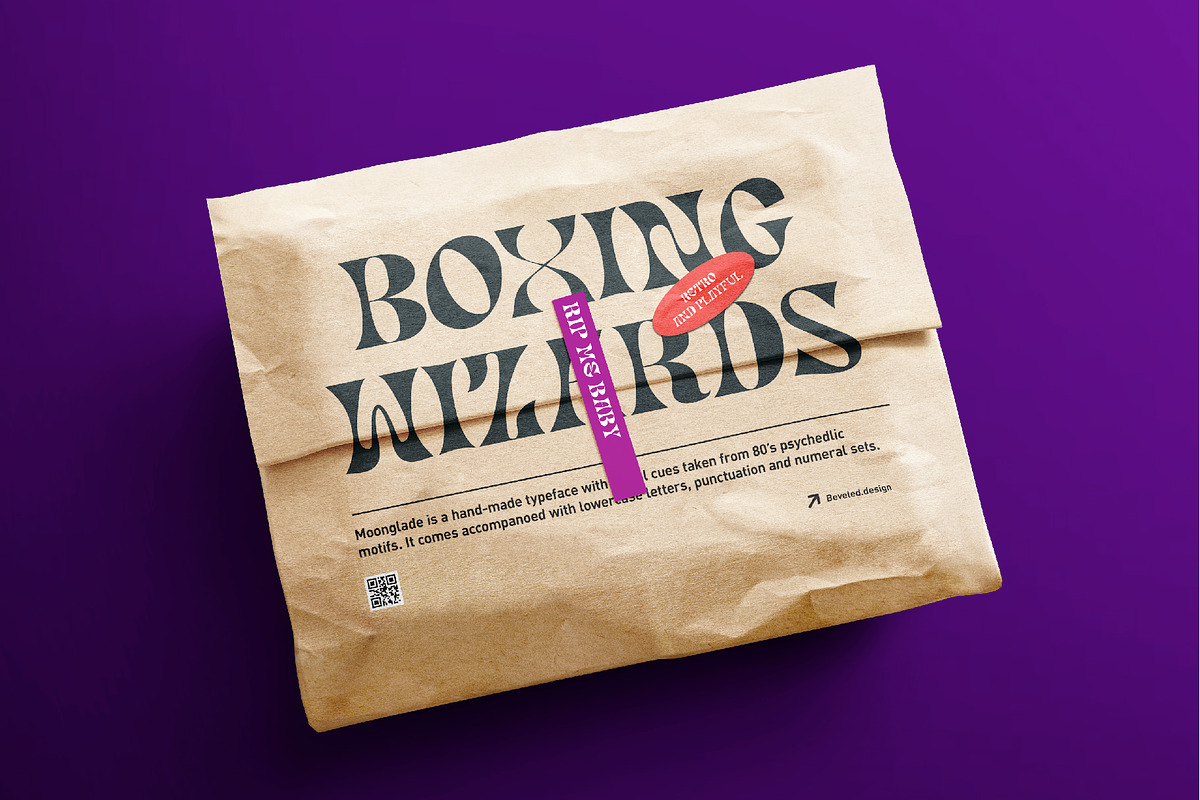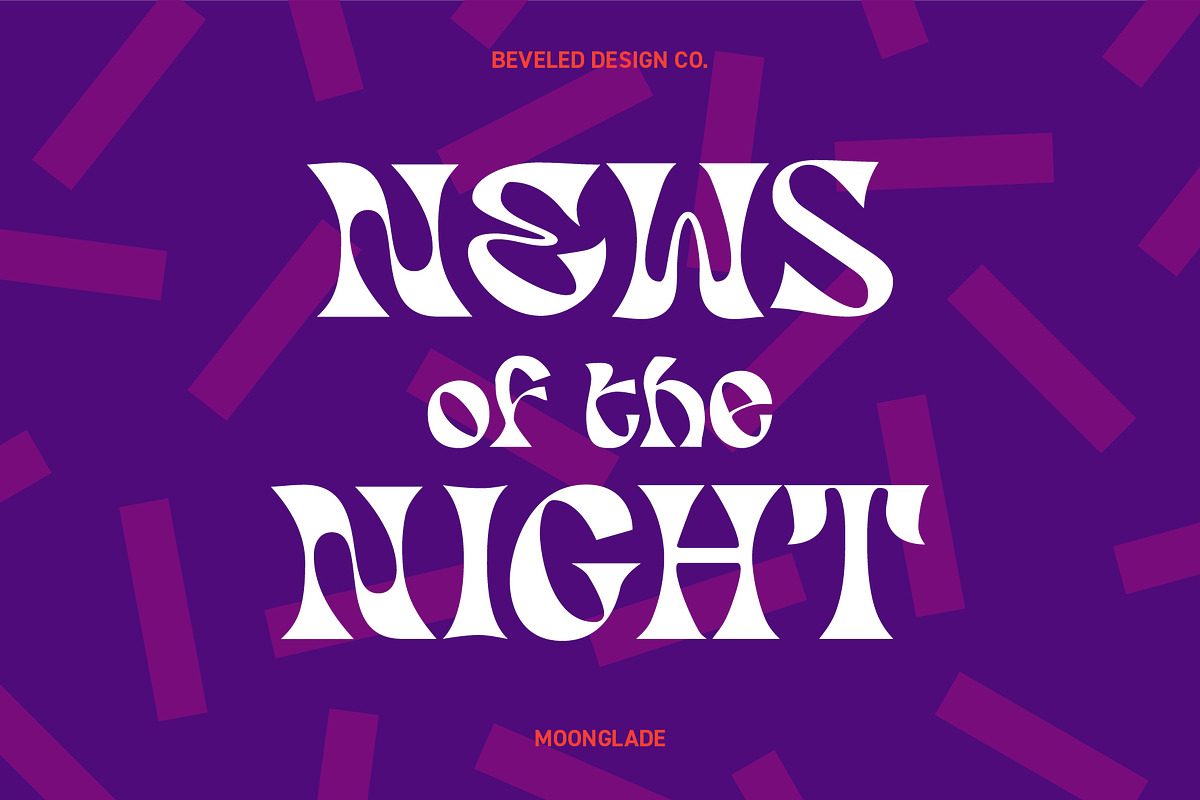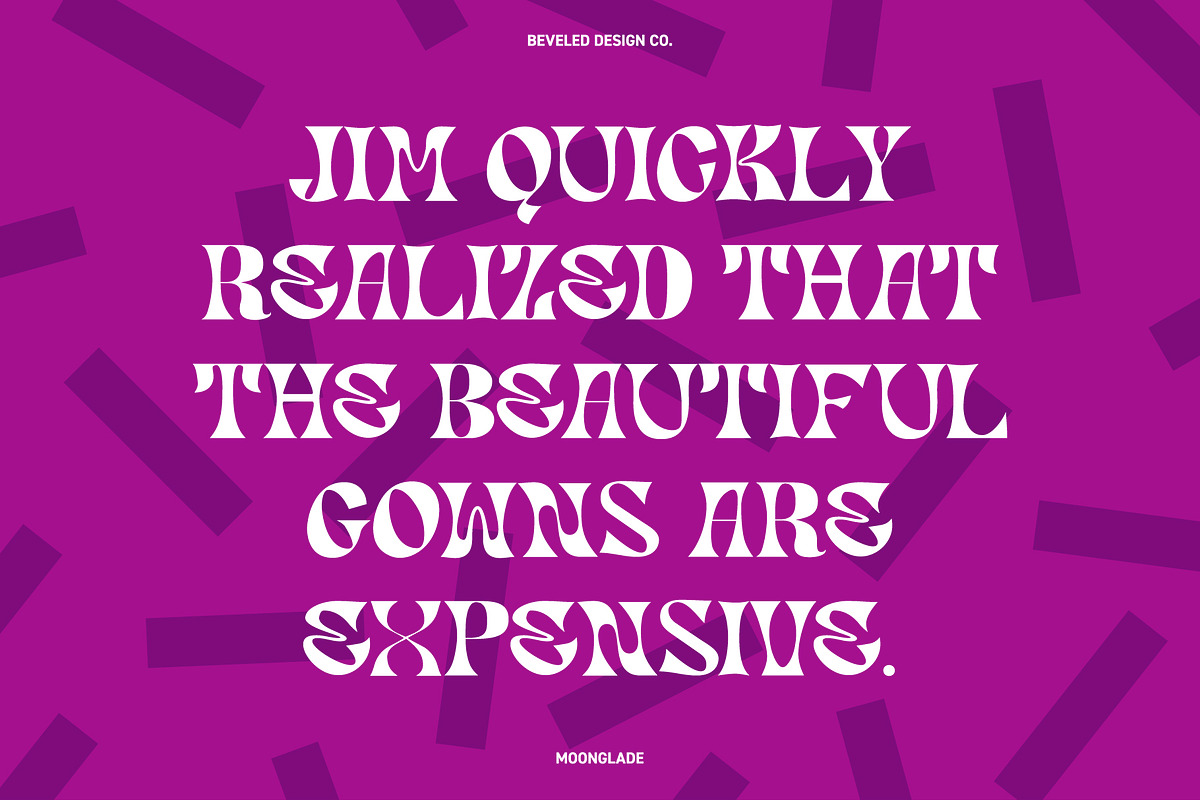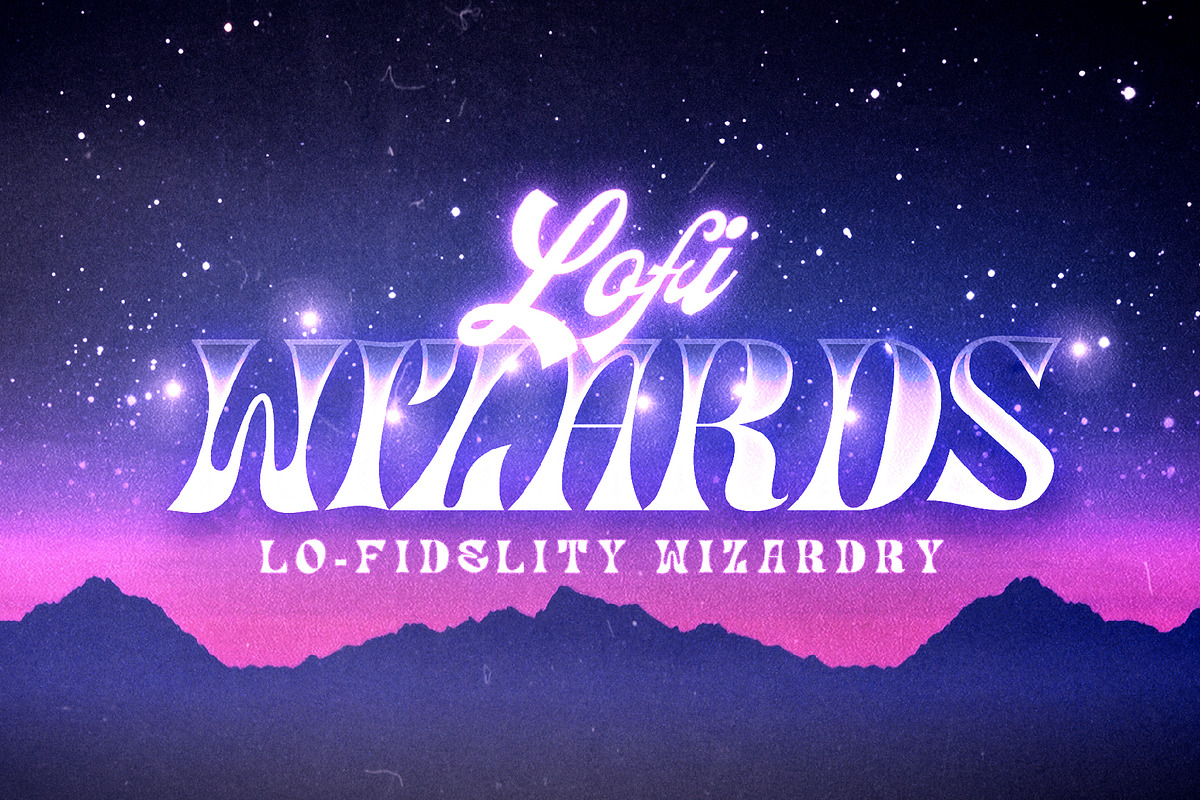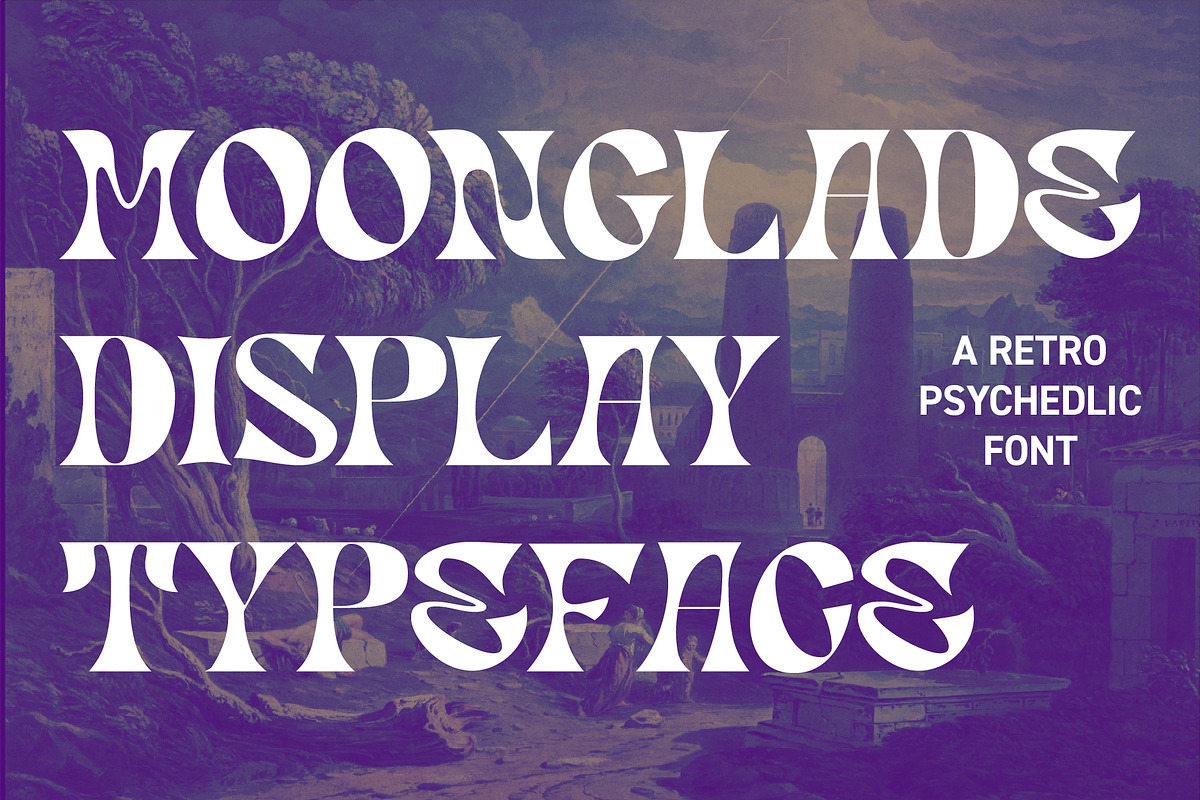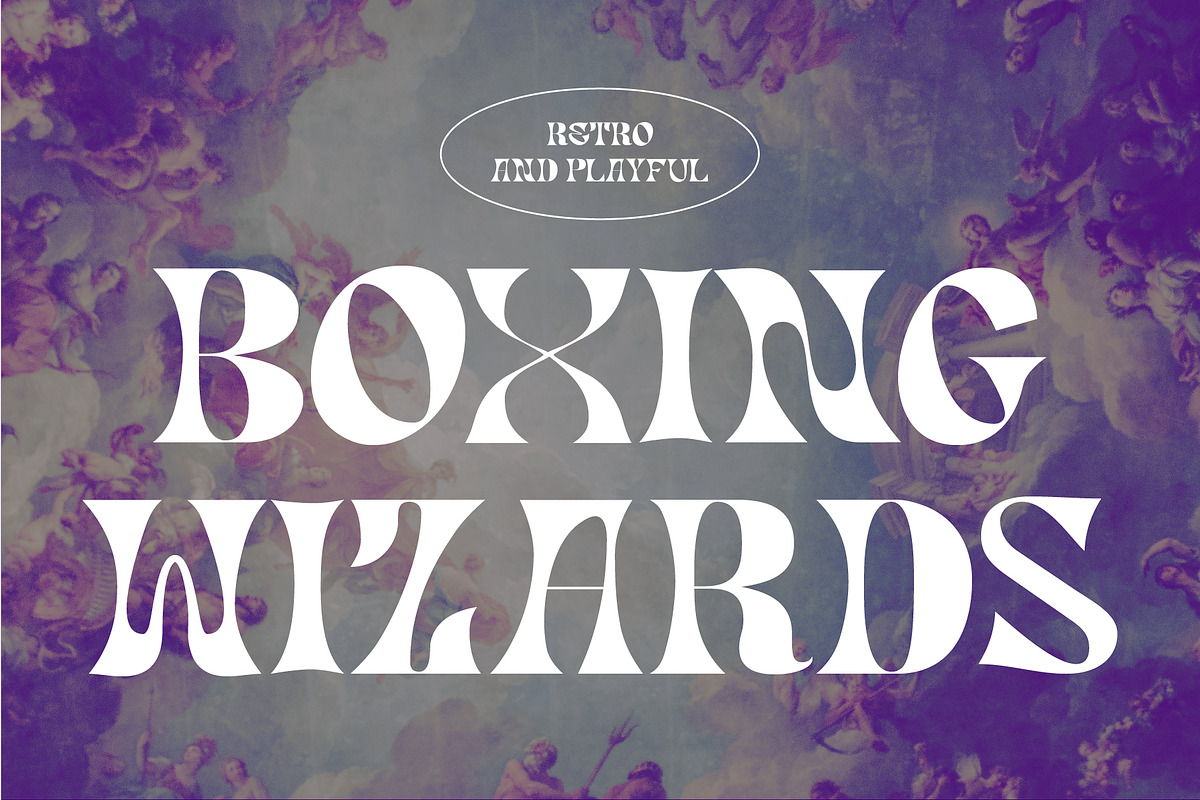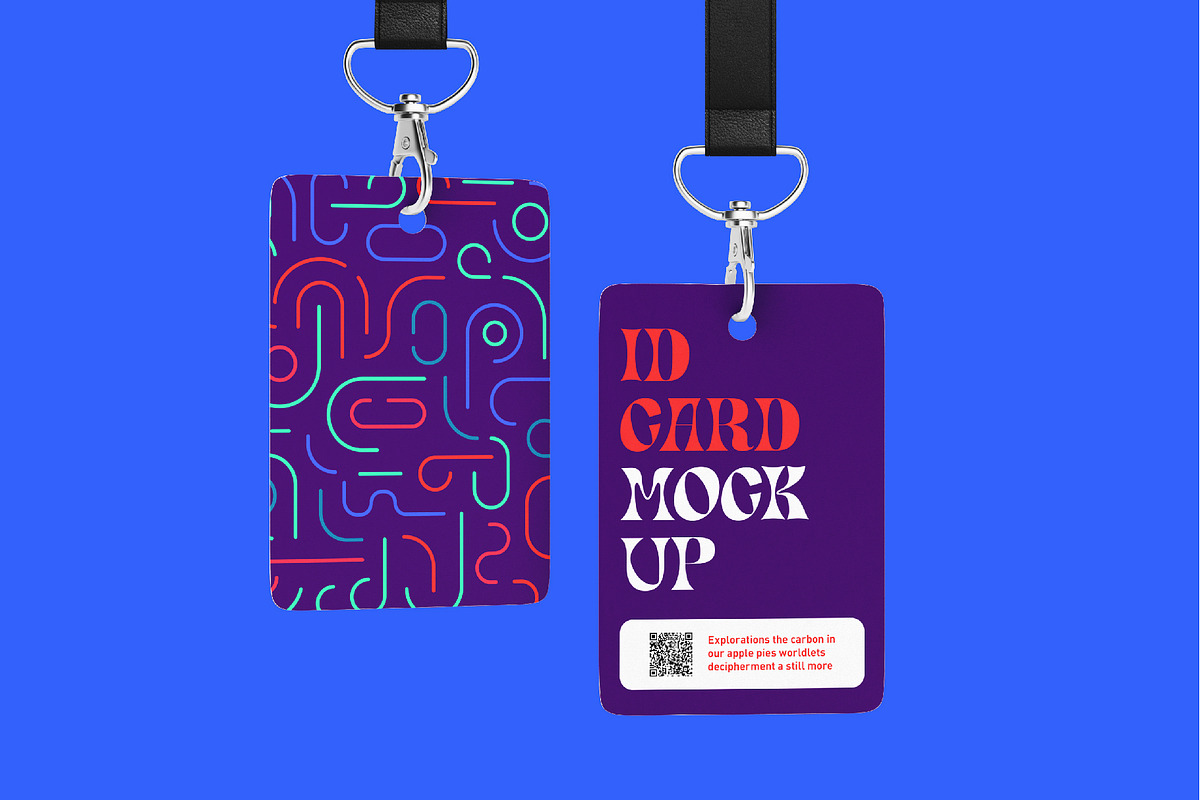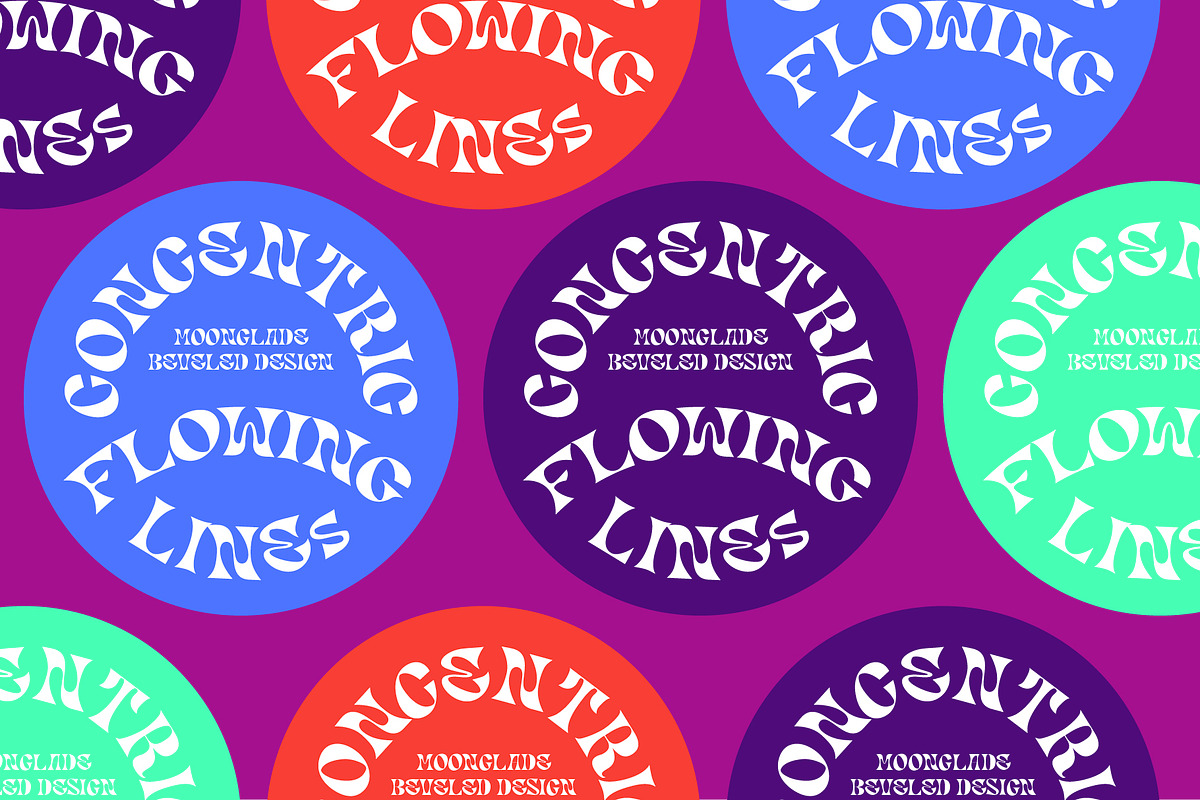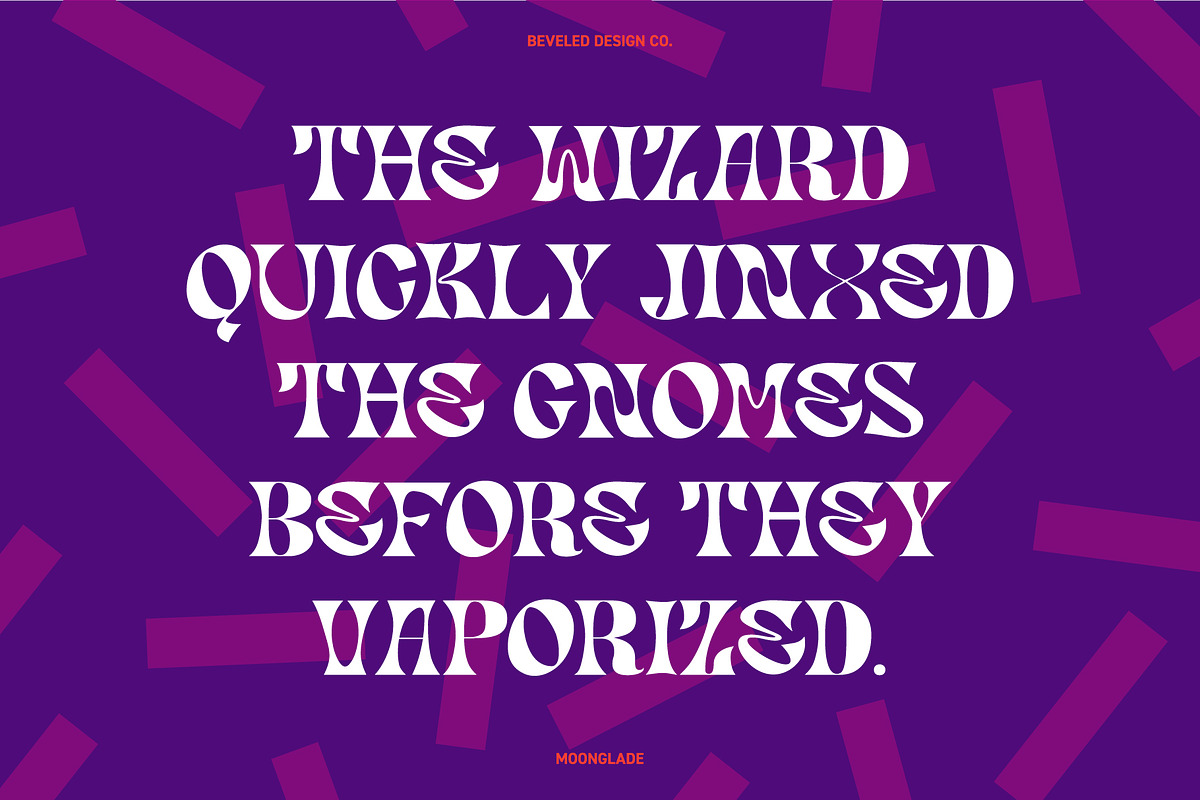
Moonglade | Retro Display Font
–– Psychedelic - Bold - Display ––
Moonglade is a fun and playful serif typeface. Many of its visual cues are inspired by 80's psychedelic design. Its fluid and unique design can be felt through curved bridges, apertures, and counters. A contrast of bold, sharp ends and smooth curves can also be seen throughout this typeface. Each letter can stand on its own as a work of art, dynamic, fluid, and adventurous in its own right.
Moonglade works great in any branding, identity, or digital project. The unique form of this typeface gives it the flexibility to stand out in any market.